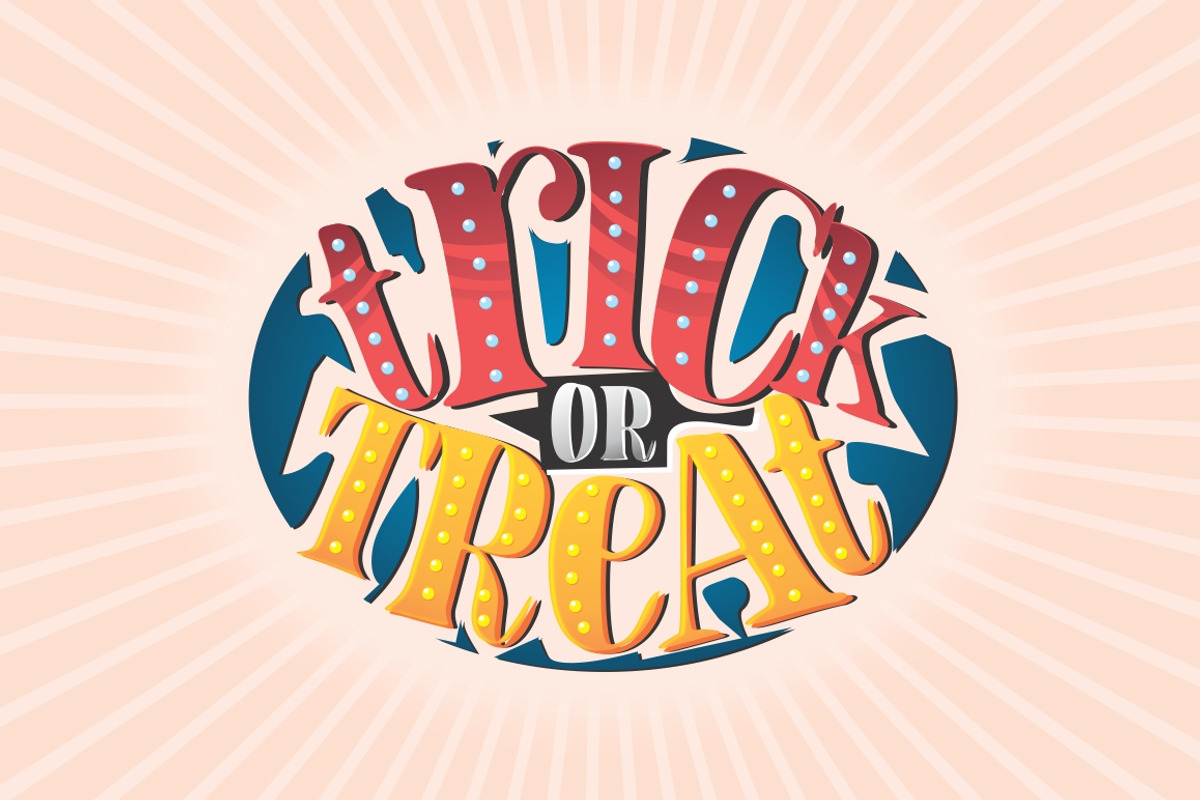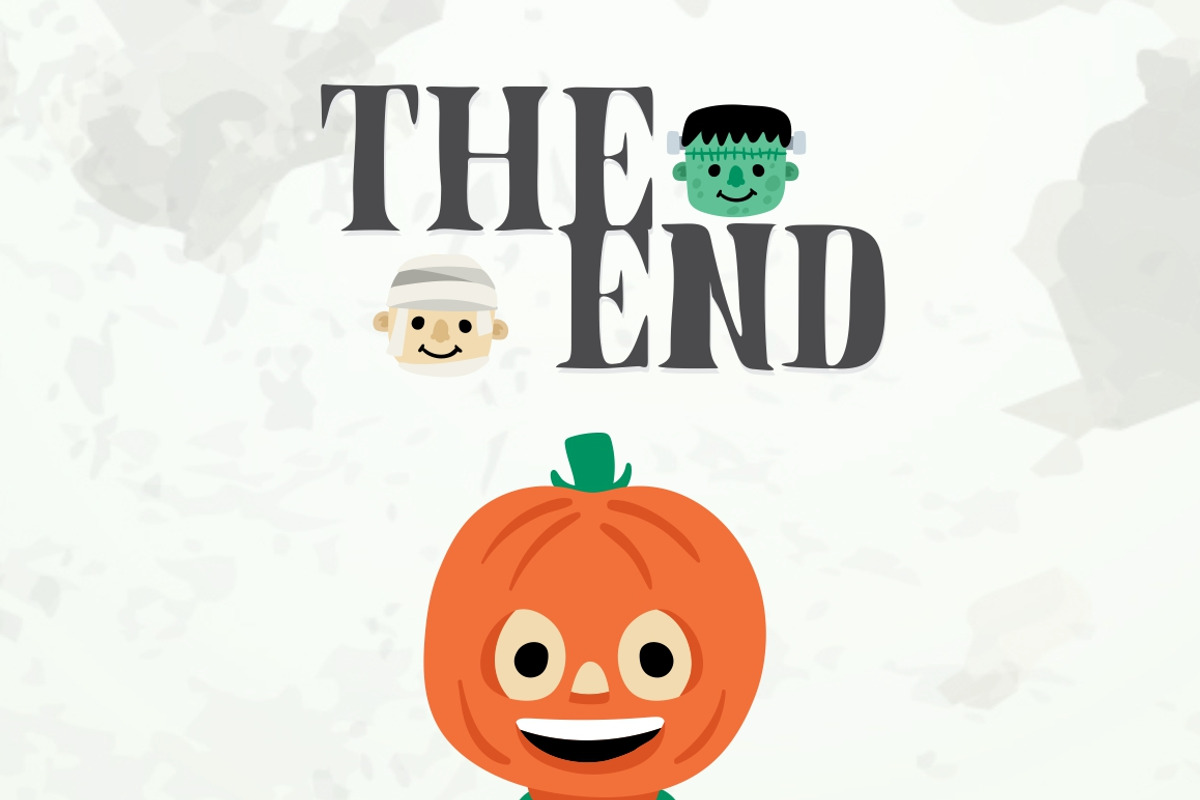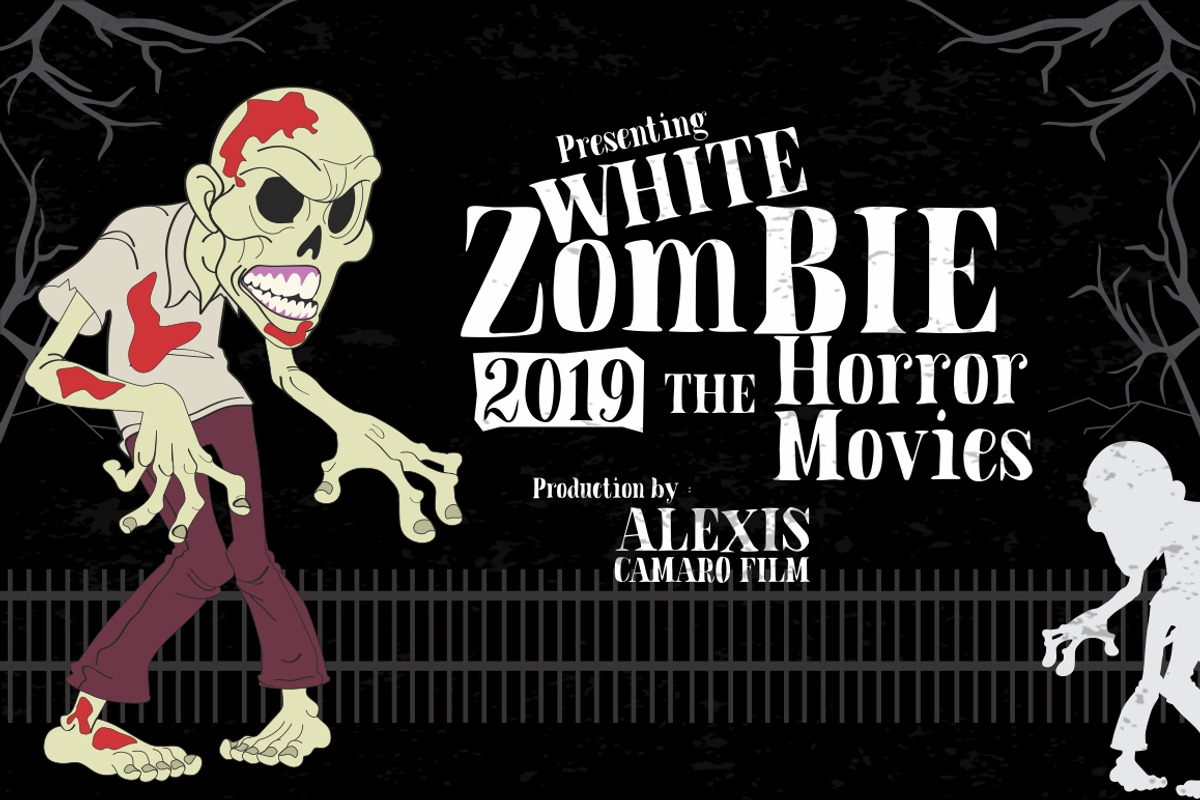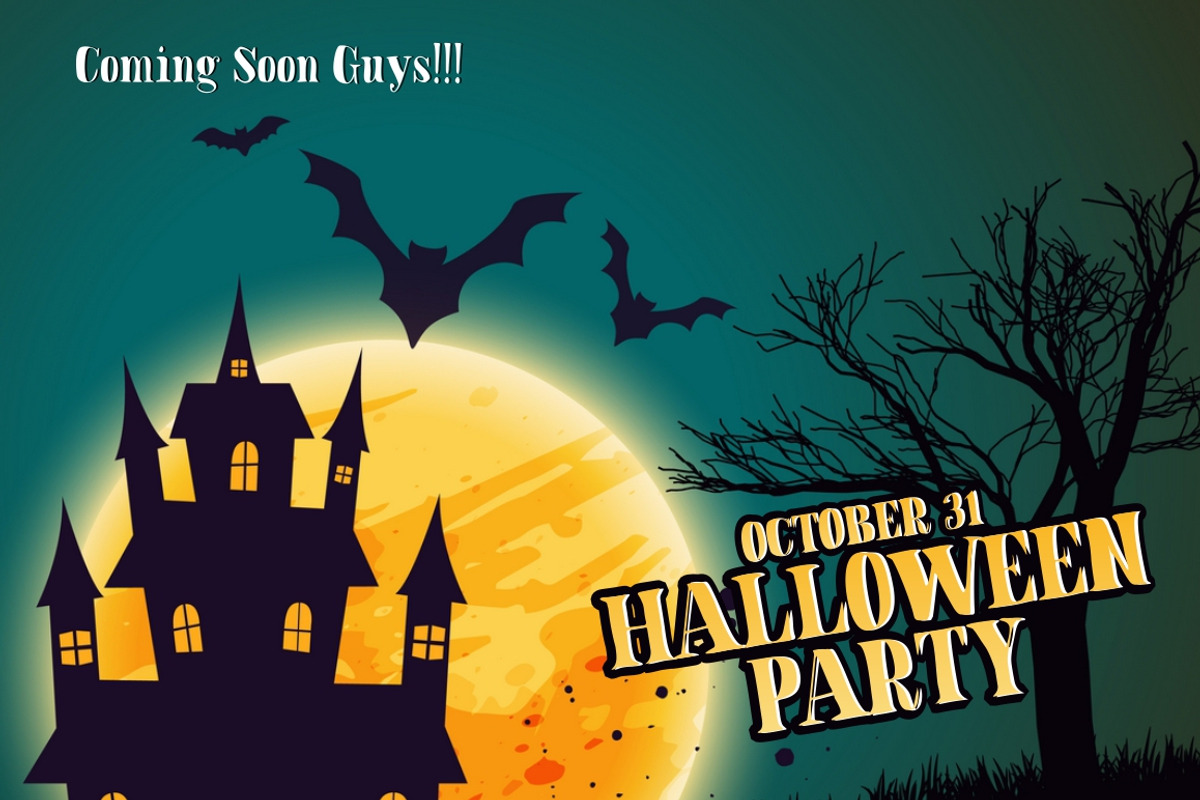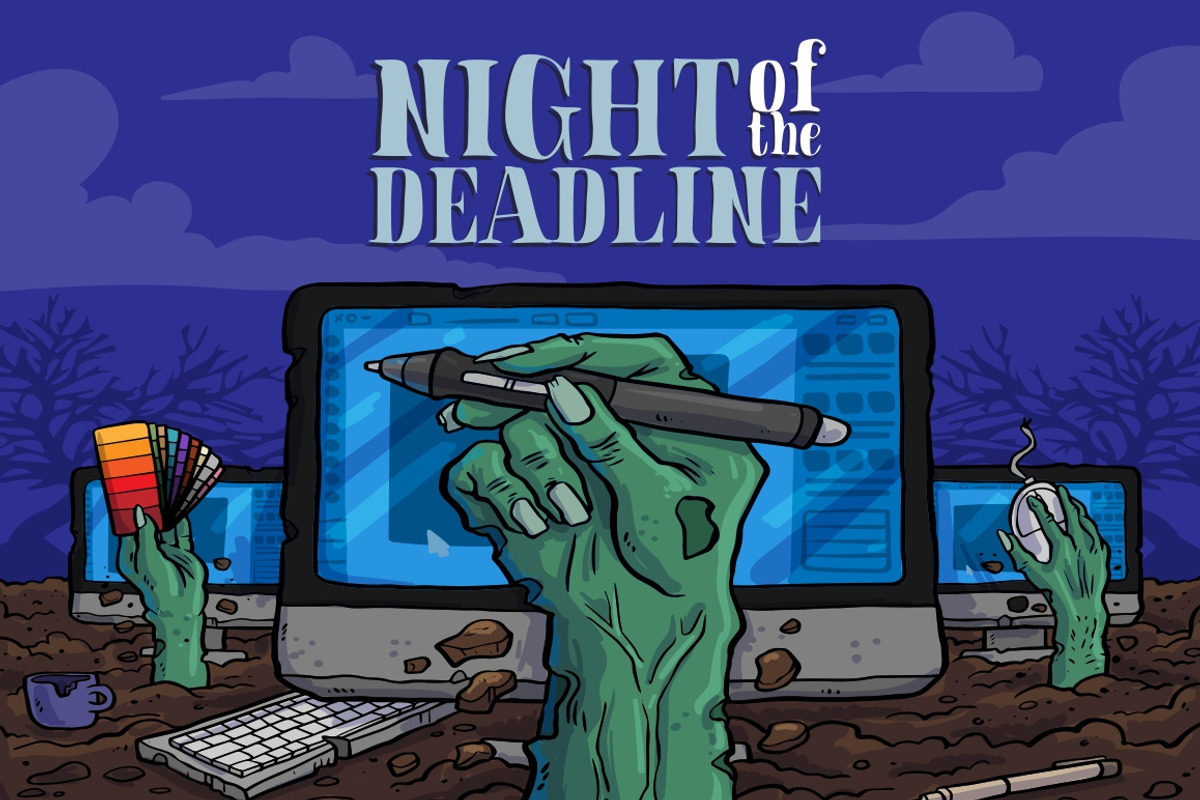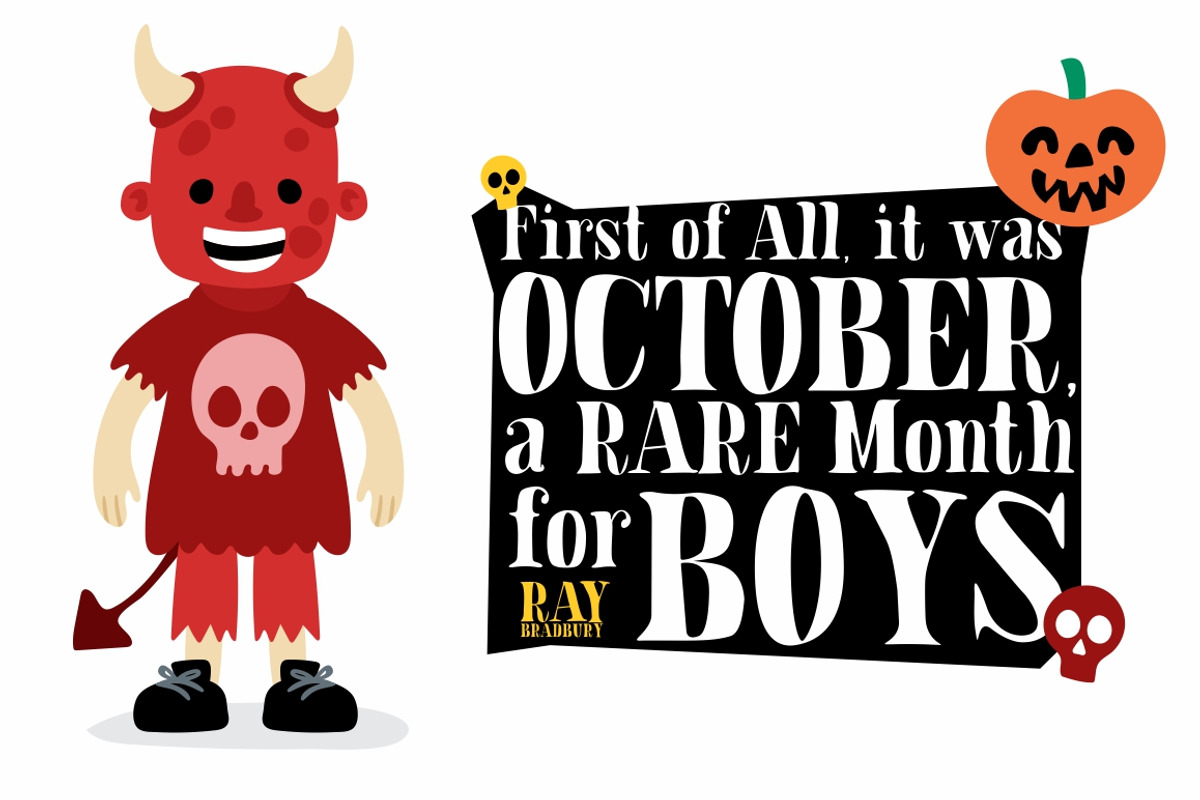
BLADE - Hallowen Font
Introducing Blade Font! This font has a natural serif style like handwriting, but still has asserted. Also has a style of horror so it is suitable to meet your design needs in order to welcome Hallowen day!
With a style like this, this font will be suitable in use for logo's, branding projects, homeware designs, product packaging, mugs, quotes, posters, shopping bags, logo's, t-shirts, book covers, name card, invitation cards, greeting cards, and all your other lovely projects.
You can use this font for your job very easily. Because there are many features in it. Contains the complete set of lower and uppercase letters, punctuation, numbers, web fonts, and multilingual support. This font also includes several ligatures and alternative style Stylistic Set For those of you who have software that is capable of working OpenType (Corel Draw / Photoshop / Illustrator / InDesign).
BLADE - Hallowen Font by FadeLine Studio fits naturally into Branding, posters, packaging, typography.